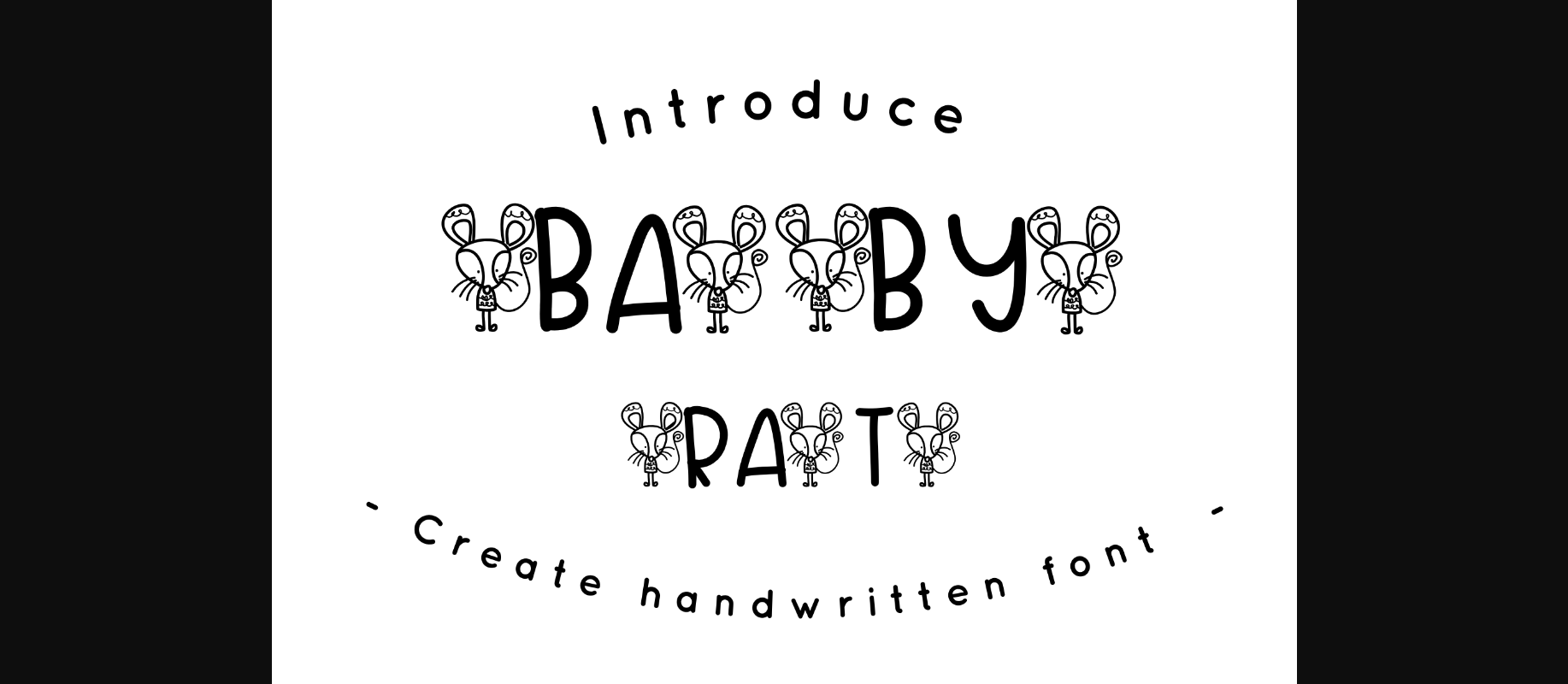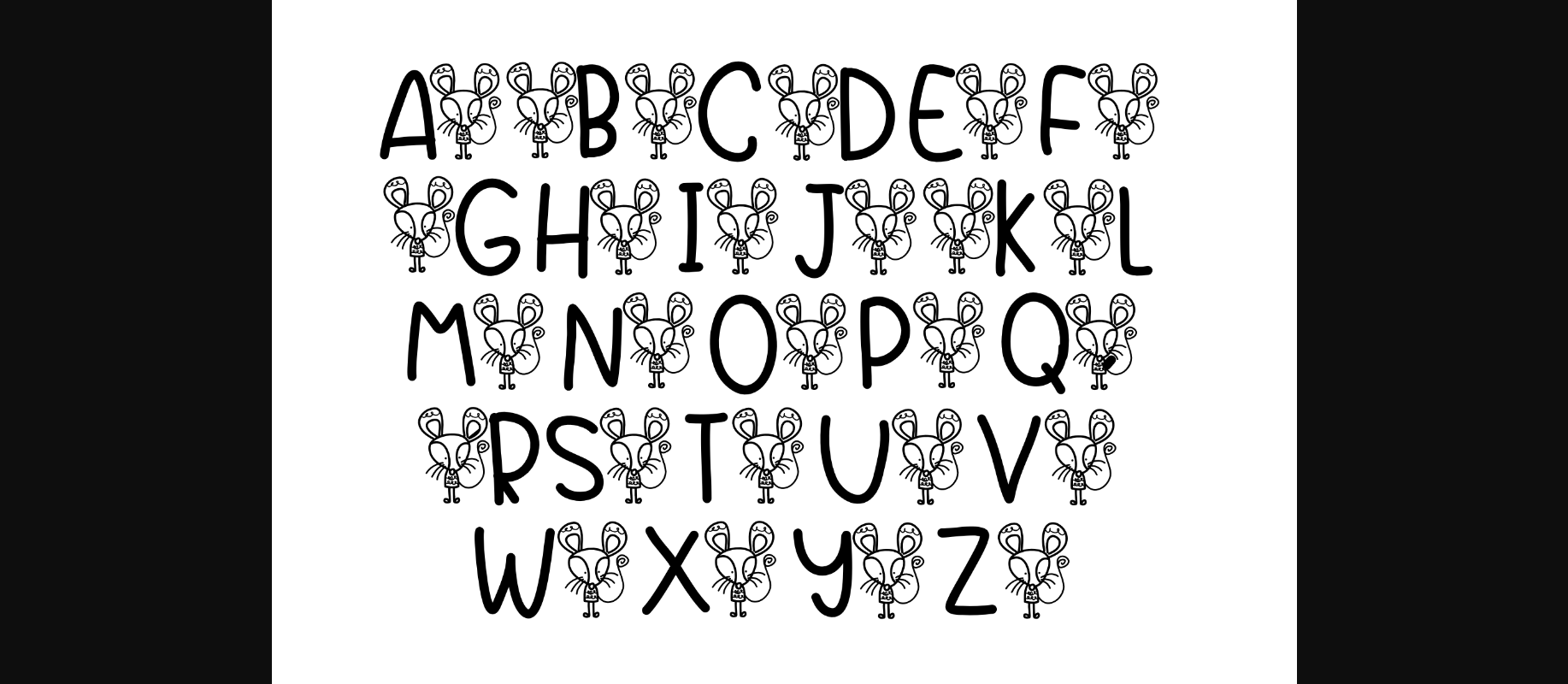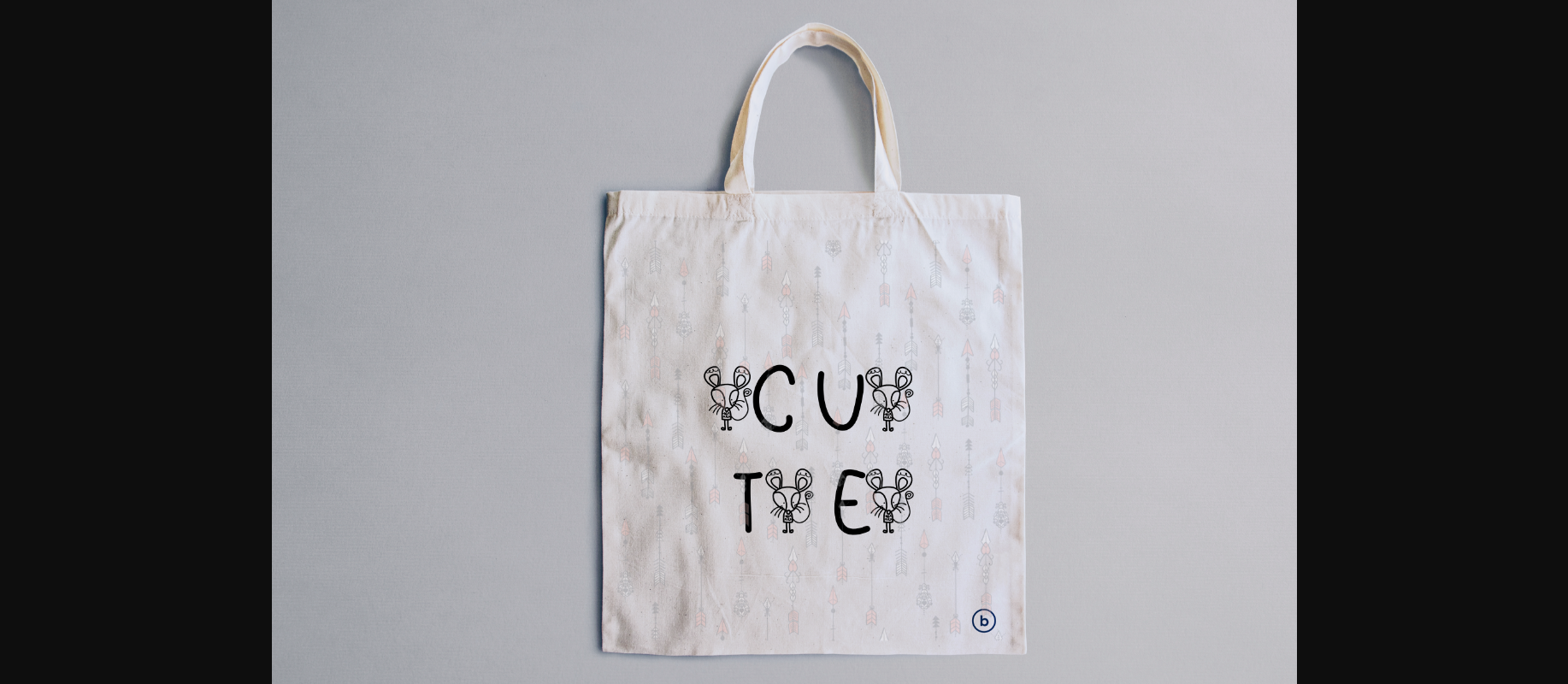
About Baby Rat Font
Baby Rat is an incredibly cute and quirky decorative font, featuring baby rat ornaments. Get inspired by its unique style and create spectacular designs!